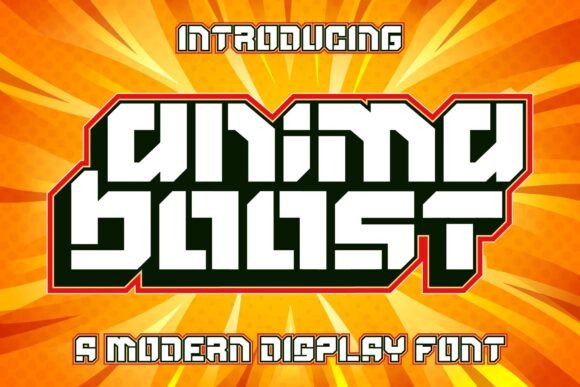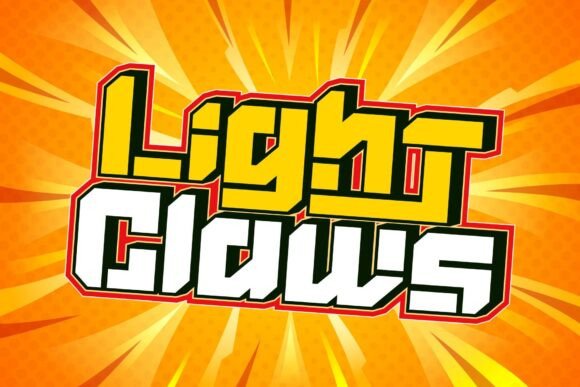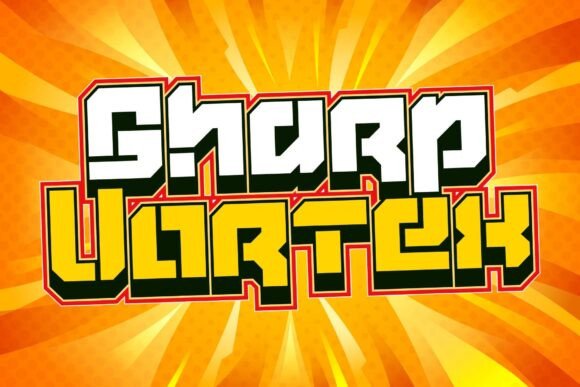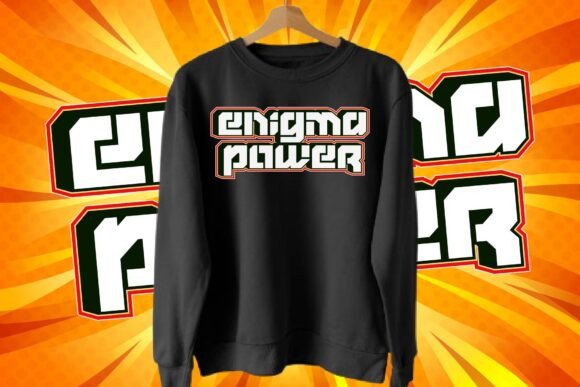
Anima Boost Font: A Playful & Bold Display Font for Creative Designs
About the Anima Boost Font
Make a bold statement with Anima Boost Font, a powerful and memorable font. Anima Boost is a fun and thick lettered display font. It is great for delivering any message with confidence, authenticity and charm. Use it for cartoons, magazine covers, games or pretty much anything that requires a jolly touch.
Anima Boost thrives in headline applications, short impactful statements, and branding elements where a bold, playful personality is desired. It works exceptionally well for posters, packaging, and children’s book titles, injecting a sense of fun and approachability. However, its thick letterforms make it unsuitable for body text or UI elements requiring high readability.
Pairing Anima Boost with a clean sans-serif like Open Sans for body copy creates a strong contrast and balanced visual hierarchy. Alternatively, a delicate script font could add a touch of elegance, softening its boldness for projects that require a slightly more refined feel. Avoid pairing it with other heavy fonts, which would result in visual clutter.
Its core personality is energetic and friendly, making it ideal for brands targeting younger audiences or those wishing to project a confident, approachable image. Consider it for projects needing a bold visual hook that’s both memorable and inviting.
Anima Boost Font Usage Examples
Anima Boost Font Example